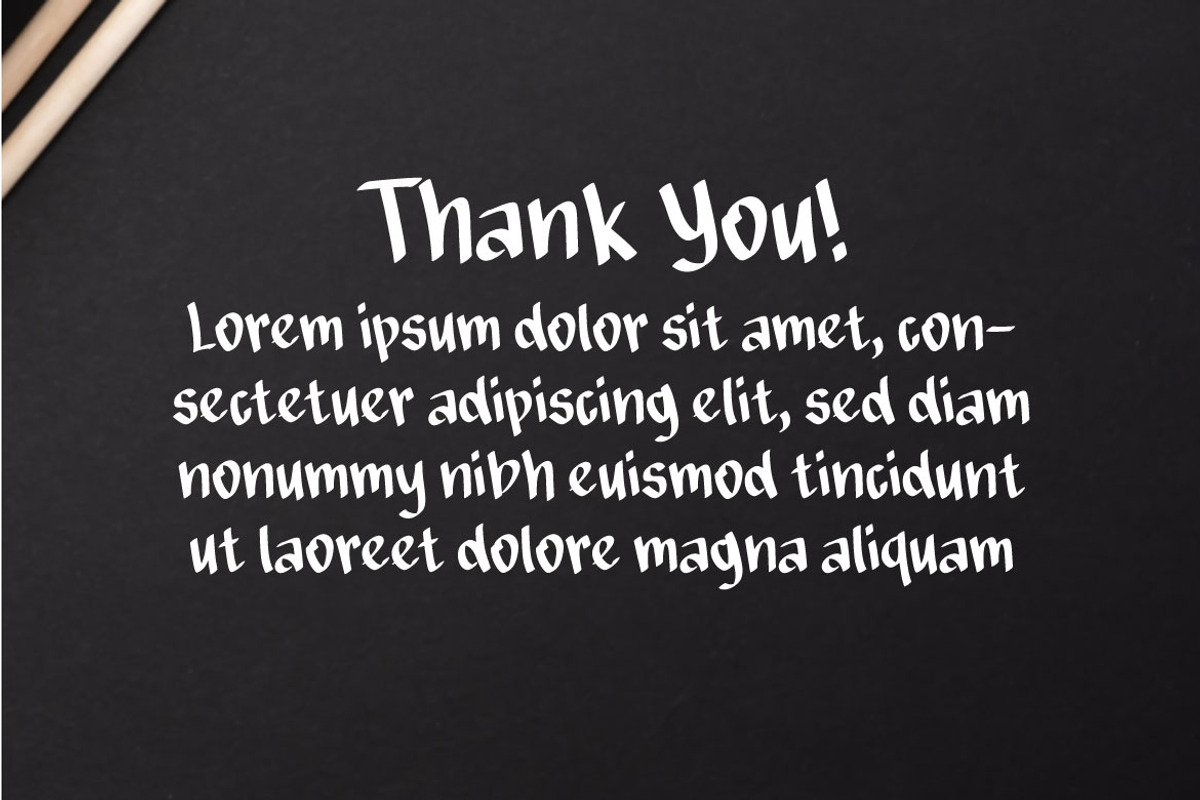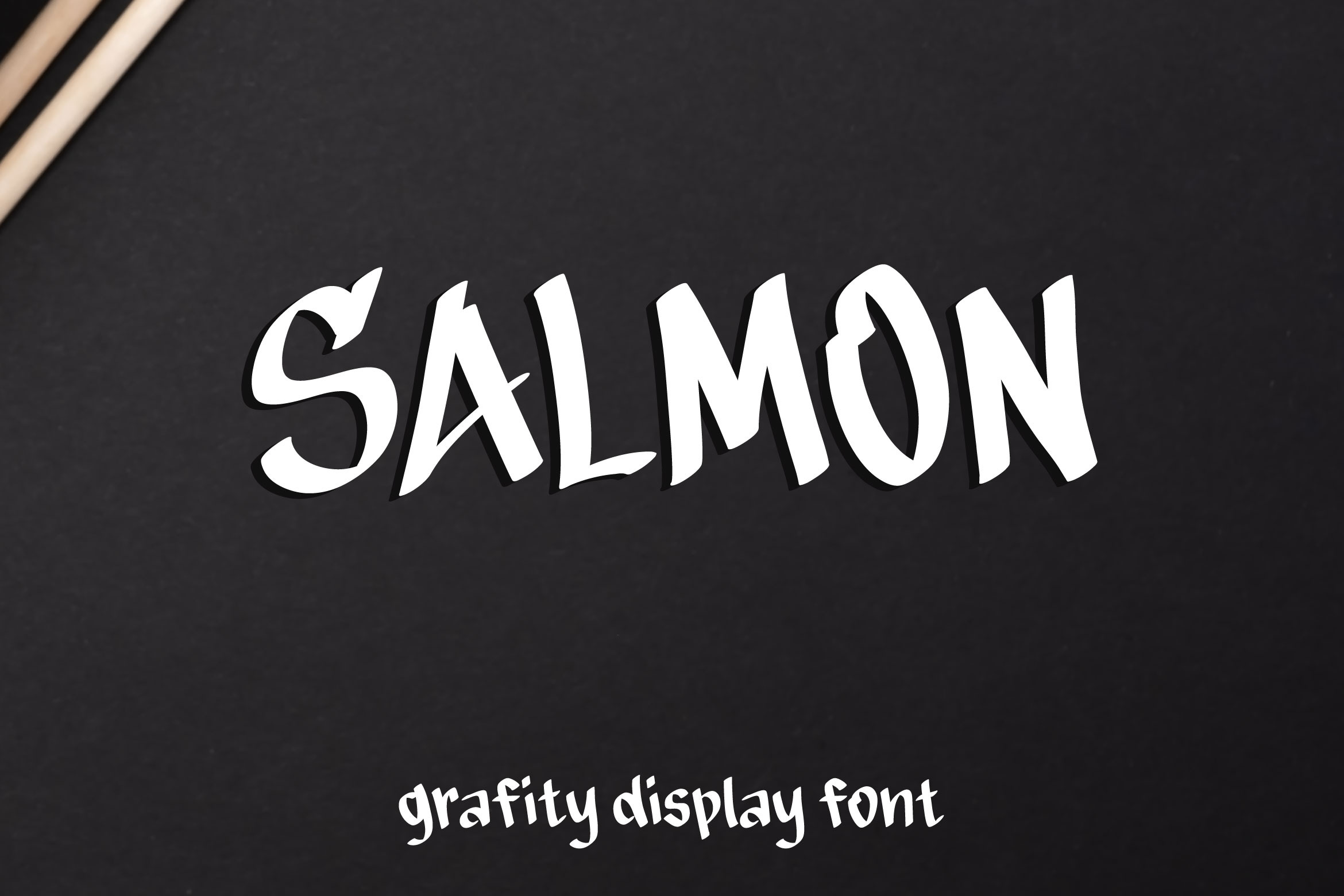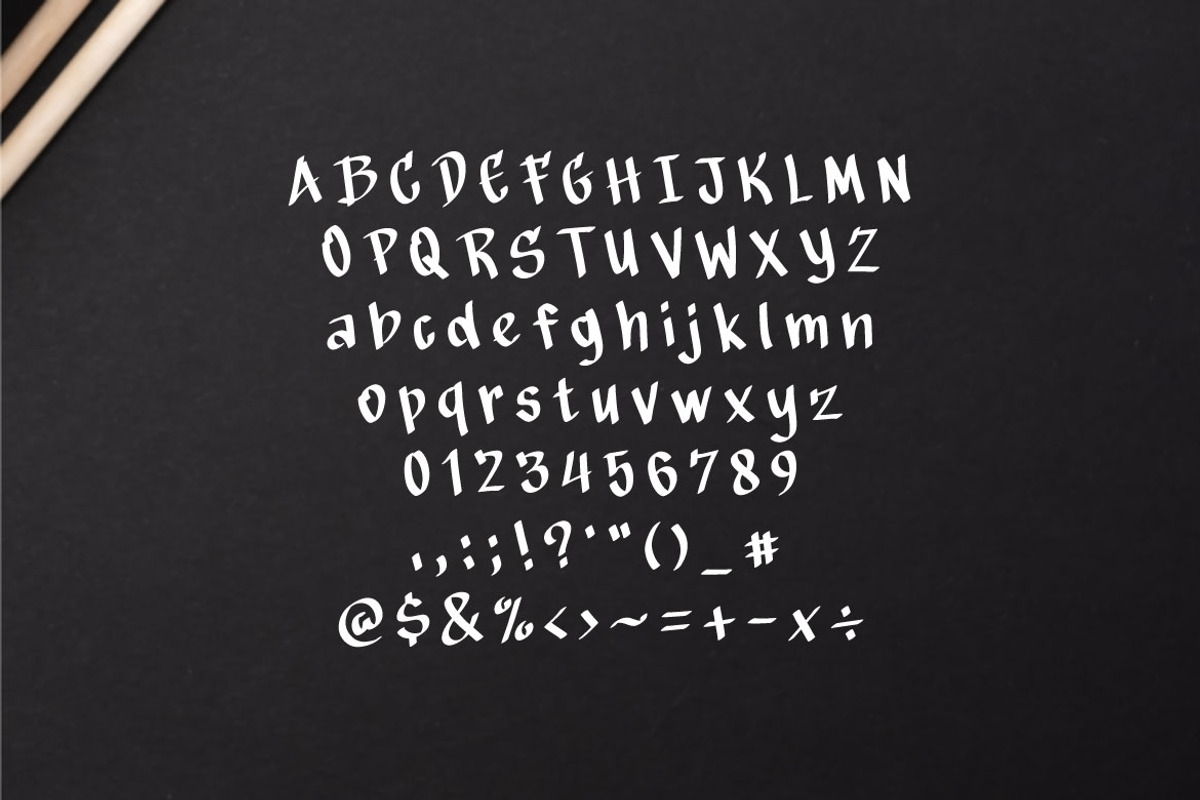
Salmon - Graffiti Display Font
SALMON is a modern graffiti look-a-like font. Salmon brings rebellious and tough look in each word. This font suits perfectly for magazine, apparel, book cover, youtube title, music cover, and many more.